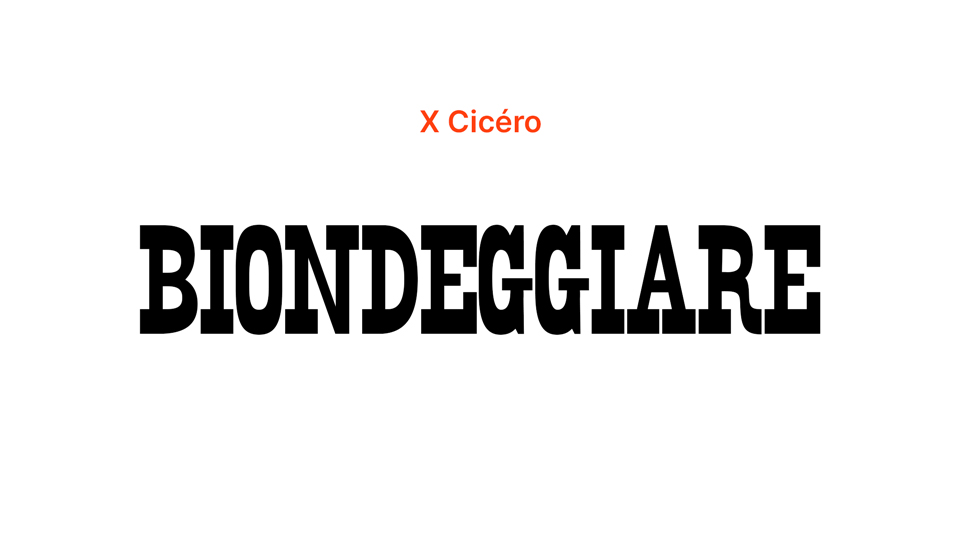
Download Biondeggiare font, a slab serif font drawn from an unidentified incomplete wood type set. Biondeggiare font is perfect to bring an old west flavor to your lettering projects, posters and signs.
Designer: Léa Ochoa